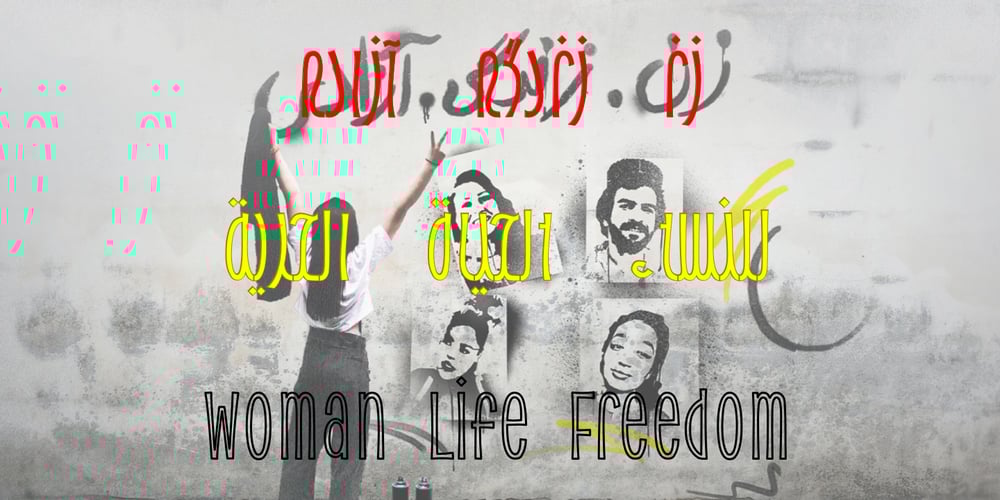
Zendegi Font Family was designed by Aria Fakhari and published by Fakharia. Zendegi contains 4 styles and family package options. Zendegi (زندگی, Life) is noteworthy for being the first unicase font in the Perso-Arabic script. This pioneering design has been made feasible by the ARTIN writing system, which enables the implementation of this distinctive typography style.In contrast to traditional Arabic fonts, all four styles within this family exhibit disconnection. Moreover, the capitalized (Isolated) letters have been modified from their conventional horizontally extended form to a vertically extended configuration. This alteration aims to establish a cohesive appearance that is particularly well-suited for horizontal writing.The zendegi LP (Less Point) regular denotes the dot-reduced version, wherein glyphs containing two or more dots are substituted with new dotless shapes. It is important to note that, with the exception of the zendegi regular style, all other styles utilize the reduced dots alphabet.The zendegi MC (Mixed Case) regular font effectively emulates Latin typographic styles, enabling users to switch between lowercase (Initial) and uppercase (Isolated) letters via a software Caps Lock key. This software-based Caps Lock functionality may be activated or deactivated by inputting the Tatweel character.. more…The final style is the All Caps (zendegi AC regular) version of this font family.Please be aware that additional related styles are available within the zan font family.This font family is heavily influenced by the Pickle Lime font. If you plan to use the Latin characters extensively, be mindful of the licensing rights associated with it to avoid any violations.